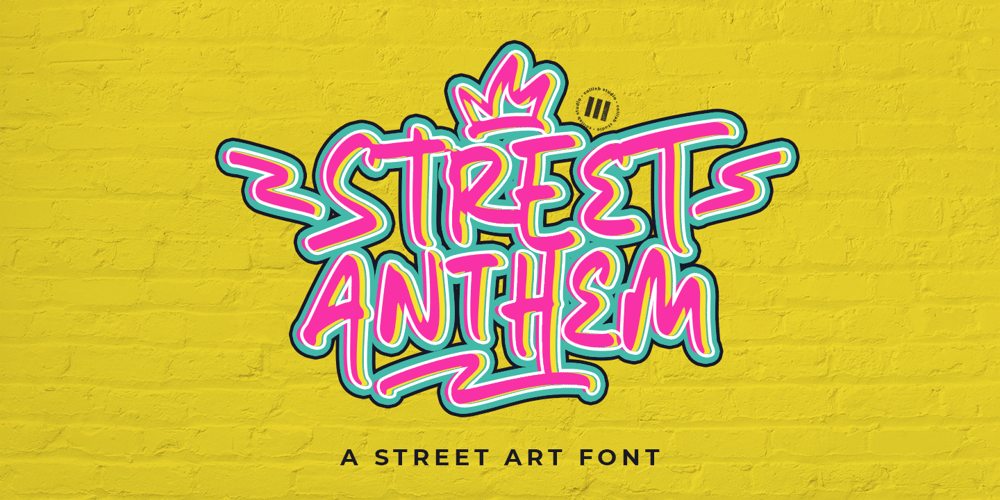
Street Anthem Font Family was designed by Muh. Aswar and published by Colllab Studio. Street Anthem contains 1 styles and family package options. Presenting Street Anthem! A Graffiti Display Font with Extra. This font made with the perfect combination of each character. You can combine with Extra, Mix and Match Uppercase and Lowercase to get a unique combination. It looks original and can be used for all your project needs. Each glyph has its own uniqueness and when meeting with others will provide dynamic and pleasing proximity. This font can be used at any time and in any project. You can see in the presentation picture above, Street Anthem looks unique and Japanese style on design projects.So, Street Anthem can’t wait to give its touch to all your design projects such as quotes, graffiti design, poster design, personal branding, promotional materials, website, logotype, product packaging, etc.WHAT’S INCLUDED?1. Street Anthem • It comes with uppercase, lowercase, ligatures, numeral, punctuation, symbols, ligatures, and Standard Latin Multilingual Support (Afrikaans, Albanian, Catalan, Danish, Dutch, English, French, German, Icelandic, Indonesian, Italian, Malay, Norwegian, Portuguese, Spanisch, Swedish, Zulu, and More).2. Extra Glyphs • Included 24 Graffiti Dingbats. You can feature all with typing c_1 until c_24.A Million ThanksColllab Studio